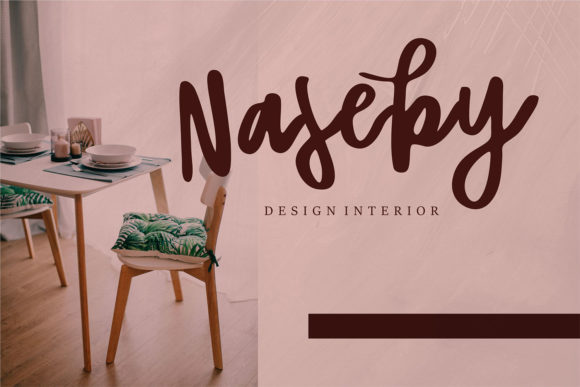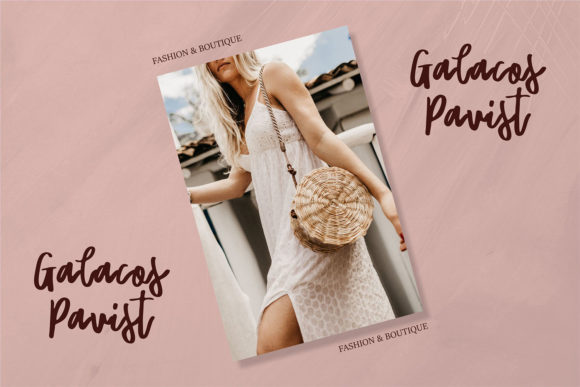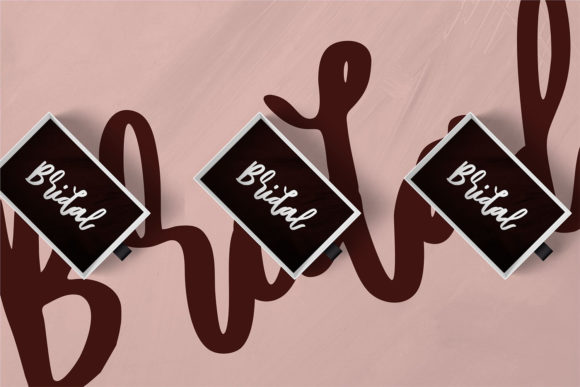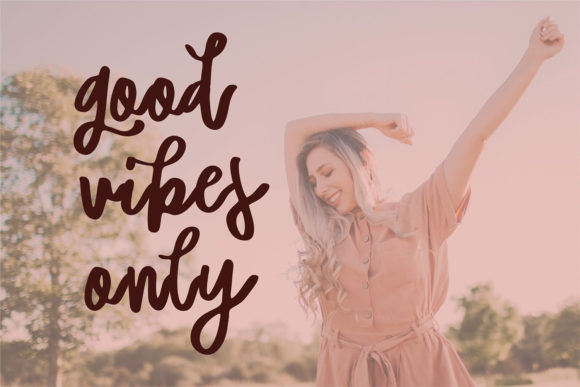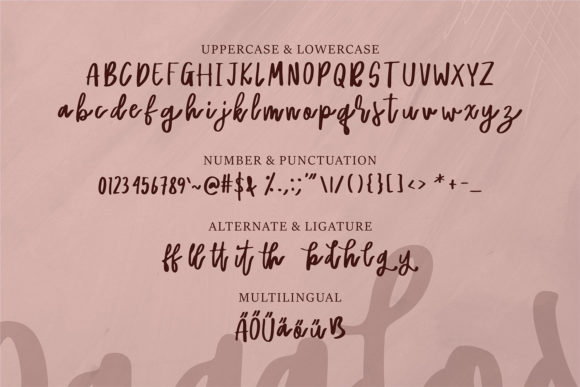
Dagalos Font: Elevate Your Designs with this Beautiful, Brushed Handwritten Font
In the world of typography, a good font can make all the difference in the success of a design project. As a designer or crafter, you’re constantly on the lookout for unique and versatile fonts that can help your creations stand out. If you’re searching for a font that can add a touch of elegance and personality to your designs, look no further than Dagalos Font. In this article, we’ll explore the features and benefits of Dagalos, and why it’s a must-have addition to your font library.
What is Dagalos Font?
Dagalos is a beautiful, brushed, and unique handwritten font that is perfect for a wide range of design projects. Its distinctive, cursive style is characterized by soft, sweeping lines and a warm, organic feel. Whether you’re working on a branding project, a marketing campaign, or a personal craft project, Dagalos is a versatile font that can adapt to any topic or theme.
Key Features of Dagalos Font
So, what makes Dagalos such a special font? Here are some of its key features:
- Unique Handwritten Style: Dagalos has a one-of-a-kind, handwritten look that’s both elegant and approachable.
- Brushed Texture: The font features a beautiful, brushed texture that gives it a tactile, organic feel.
- Highly Legible: Despite its artistic style, Dagalos is highly legible, making it perfect for body text and headlines.
- Versatile: Dagalos can be used for a wide range of design projects, from branding and marketing to crafting and DIY projects.
Why You Need Dagalos Font in Your Library
So, why should you add Dagalos to your font library? Here are just a few reasons:
- Elevate Your Designs: Dagalos has the power to elevate any design project, adding a touch of sophistication and elegance.
- Stand Out from the Crowd: With its unique, handwritten style, Dagalos can help your designs stand out in a crowded marketplace.
- Perfect for Crafters: Dagalos is also perfect for crafters, makers, and DIY enthusiasts who want to add a personal touch to their projects.
How to Use Dagalos Font
So, how can you use Dagalos in your design projects? Here are a few ideas:
- Branding and Marketing: Use Dagalos as a headline font or for body text in branding and marketing materials, such as brochures, flyers, and business cards.
- Social Media Graphics: Add Dagalos to your social media graphics, such as Instagram posts and Facebook headers, to give them a personal touch.
- Crafting and DIY Projects: Use Dagalos to add a personal touch to your crafting and DIY projects, such as handmade cards, gift tags, and signs.